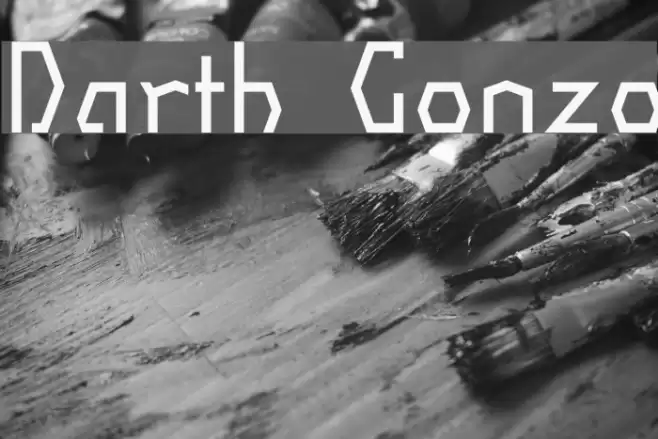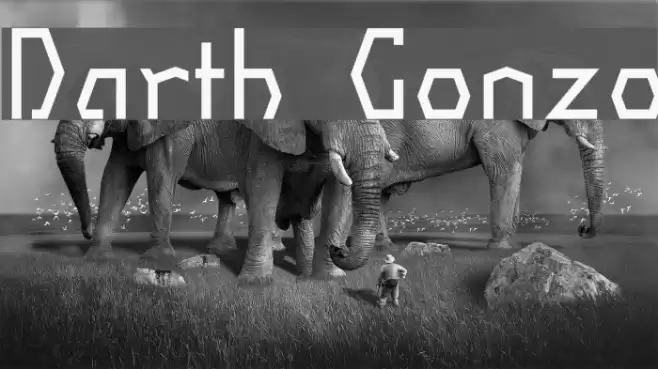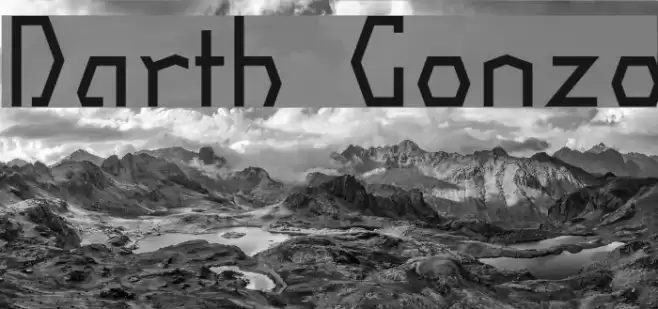
Darth Gonzo Font
Darth Gonzo Description
This font features a futuristic and angular design, characterized by sharp edges and geometric shapes. The uppercase and lowercase letters maintain a consistent style, with a distinct, edgy appearance that suggests a modern and technological feel. The numerals and special characters follow the same design principles, ensuring uniformity across all glyphs. The font's unique style makes it stand out, with a bold presence that is both eye-catching and memorable. Its design is reminiscent of digital or sci-fi themes, making it suitable for projects that require a modern and innovative touch.
A futuristic, angular font with sharp edges and geometric shapes from Futuristic fonts.
- Proposed Projects: Ideal for sci-fi movie posters, tech branding, video game titles, and futuristic-themed designs.